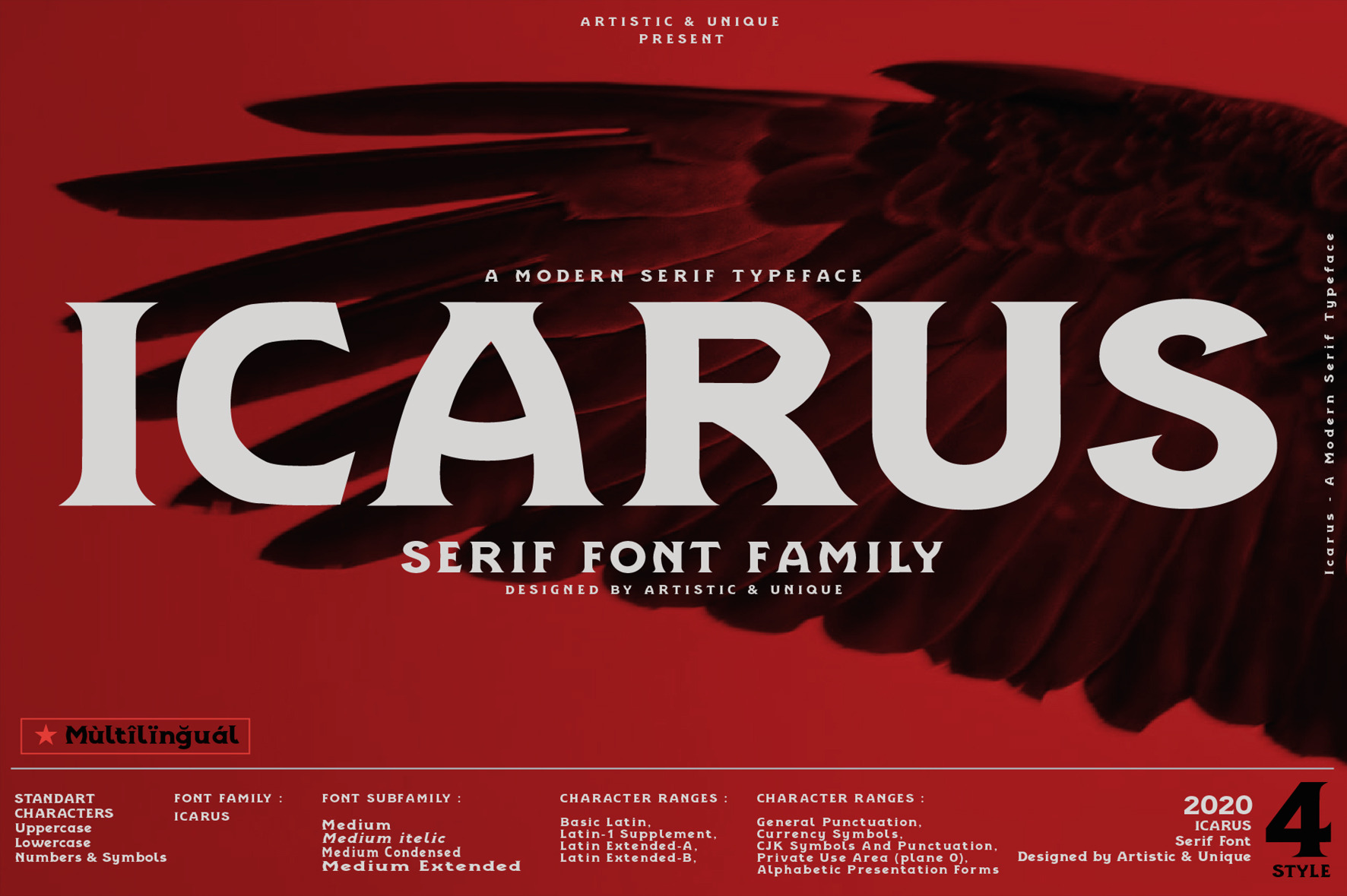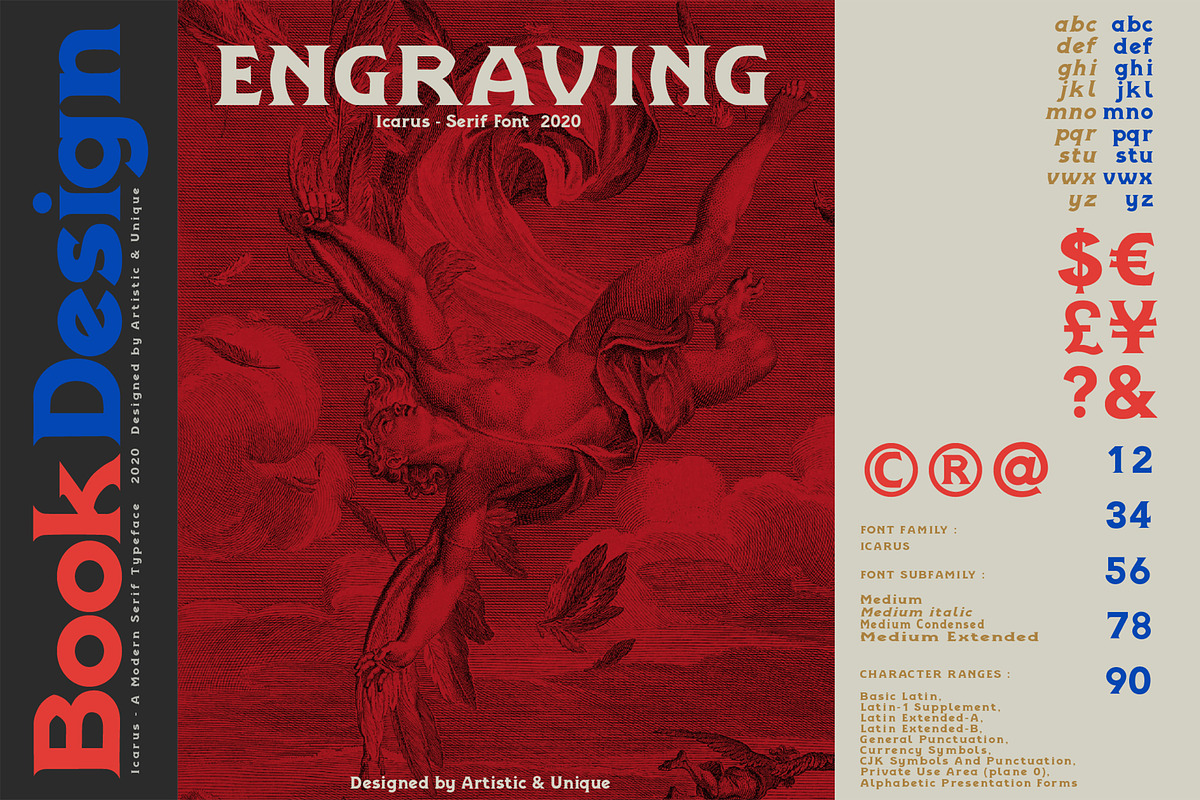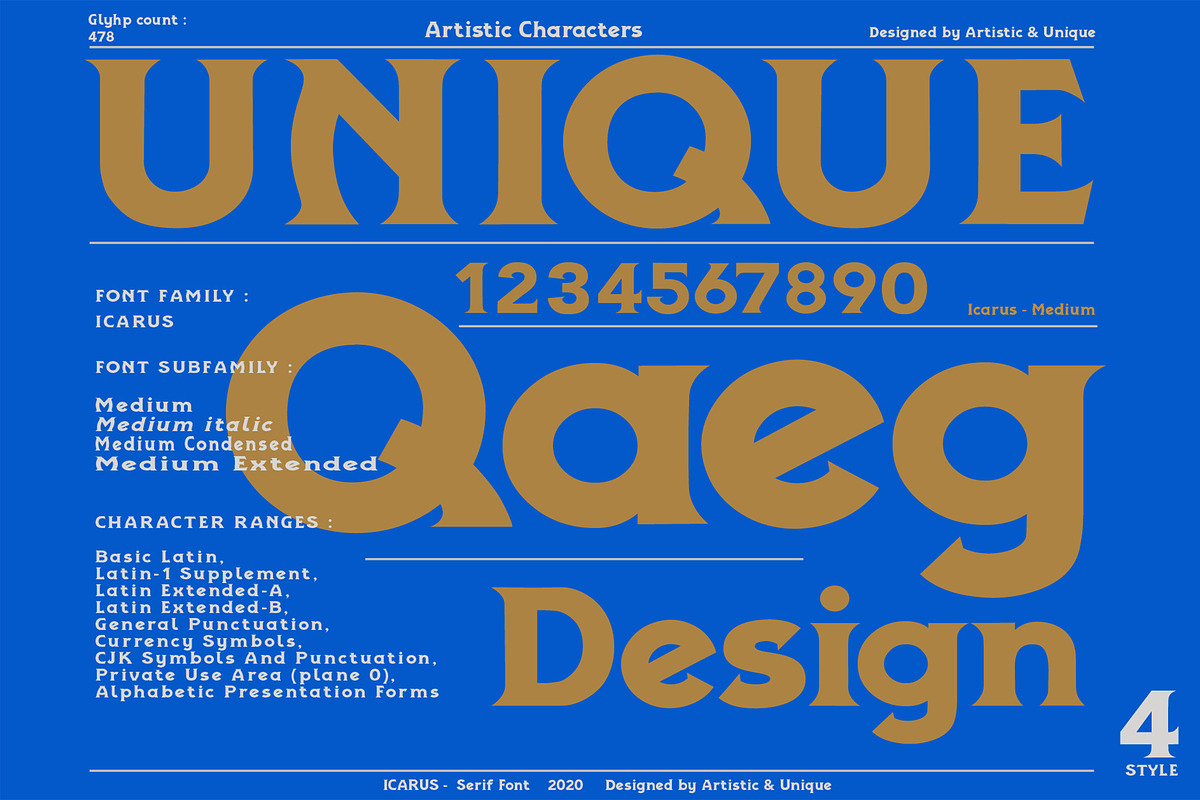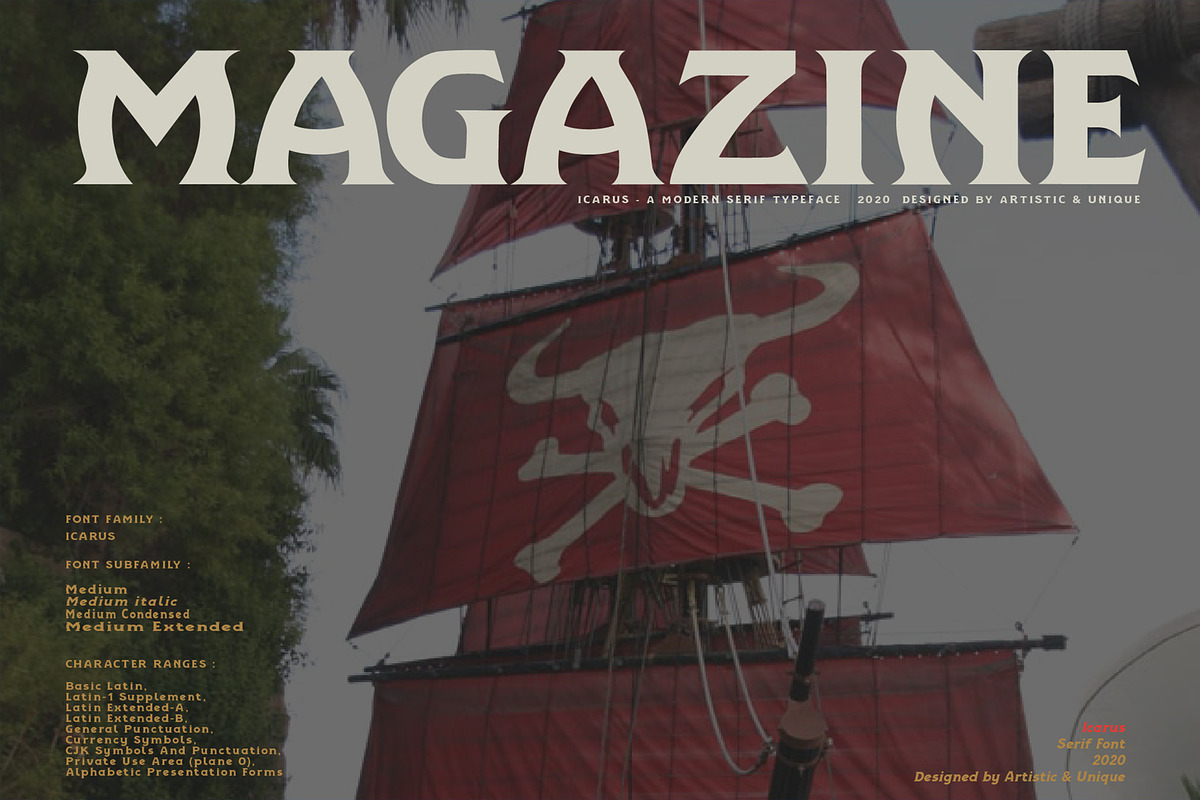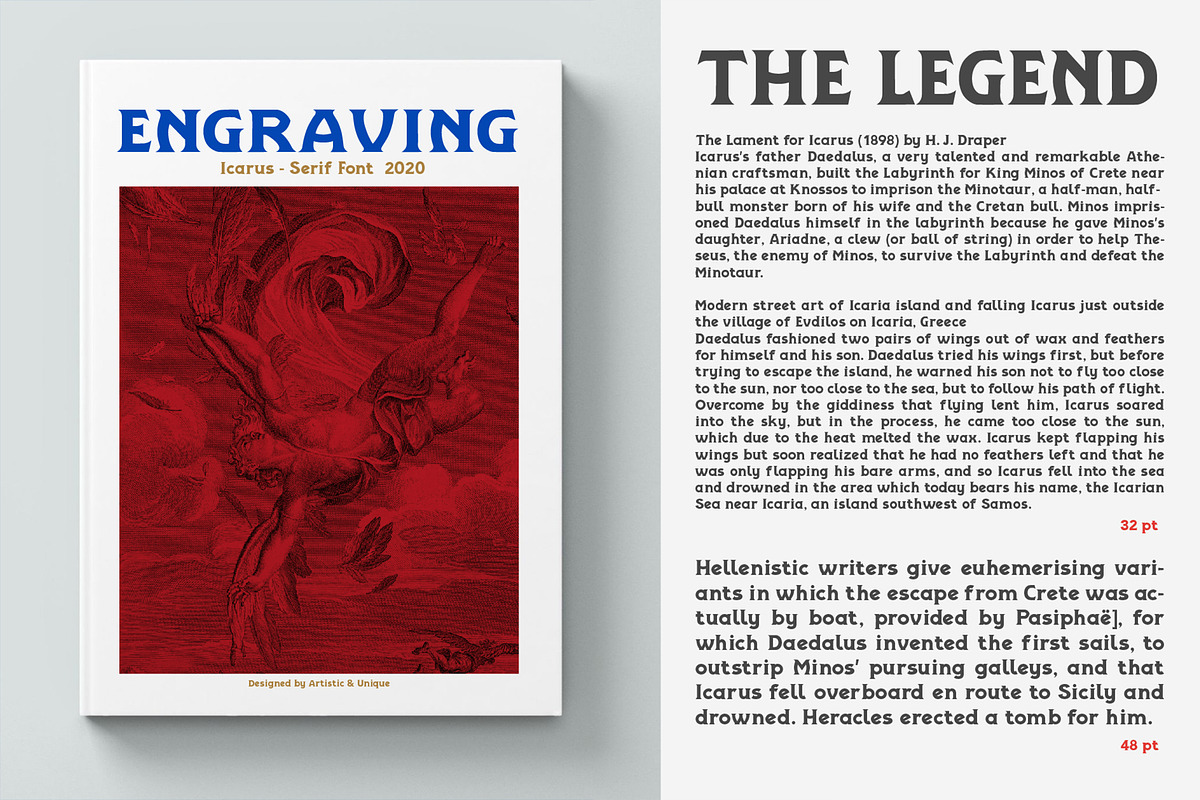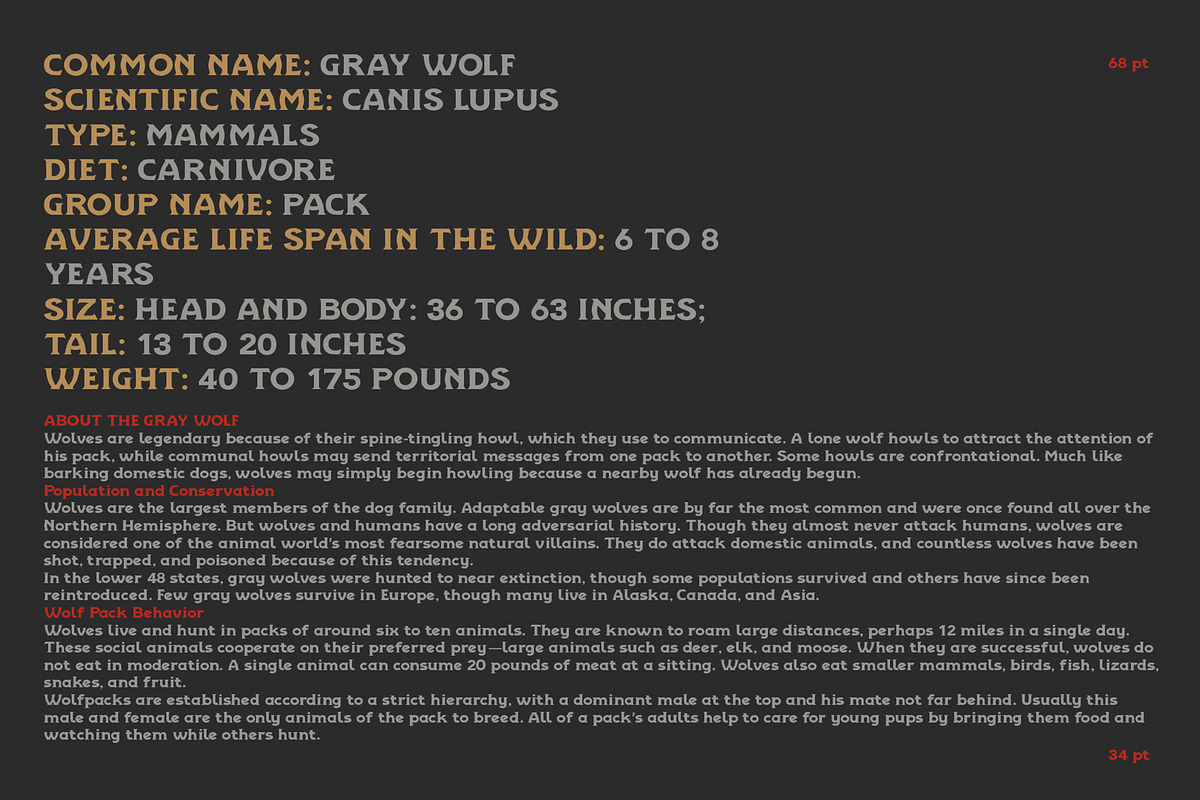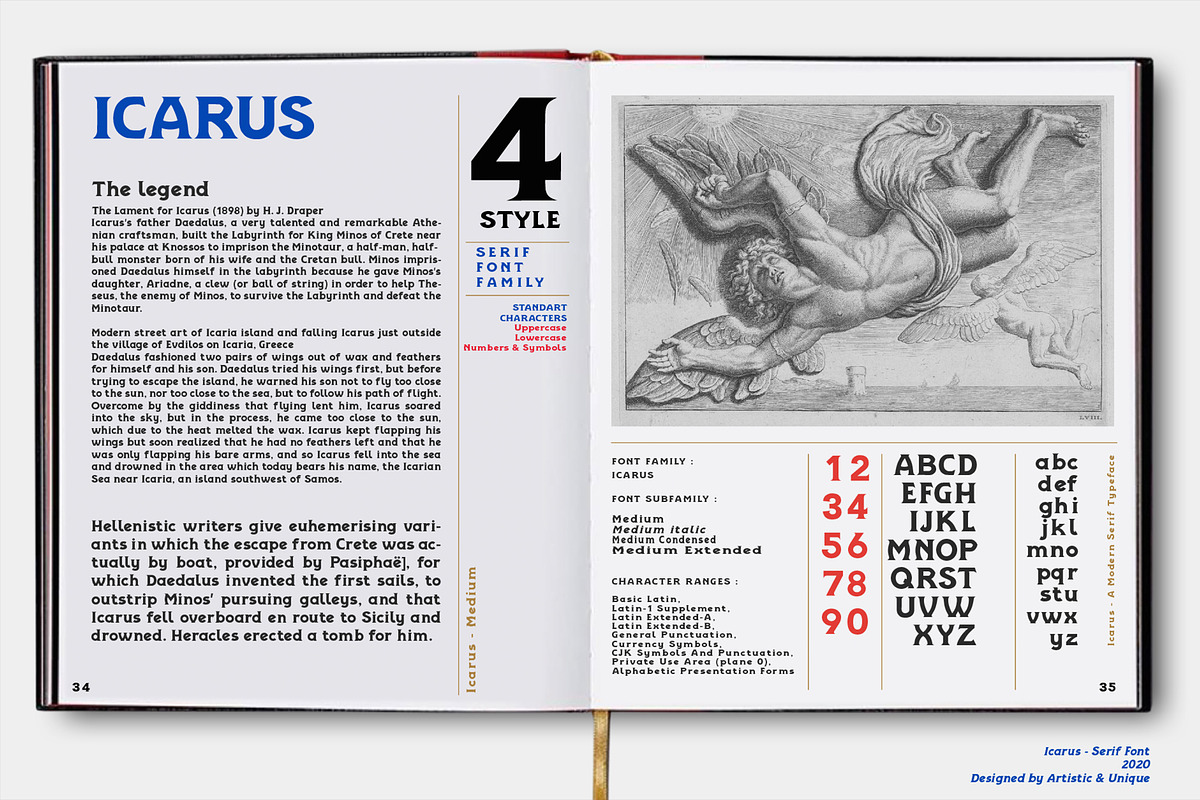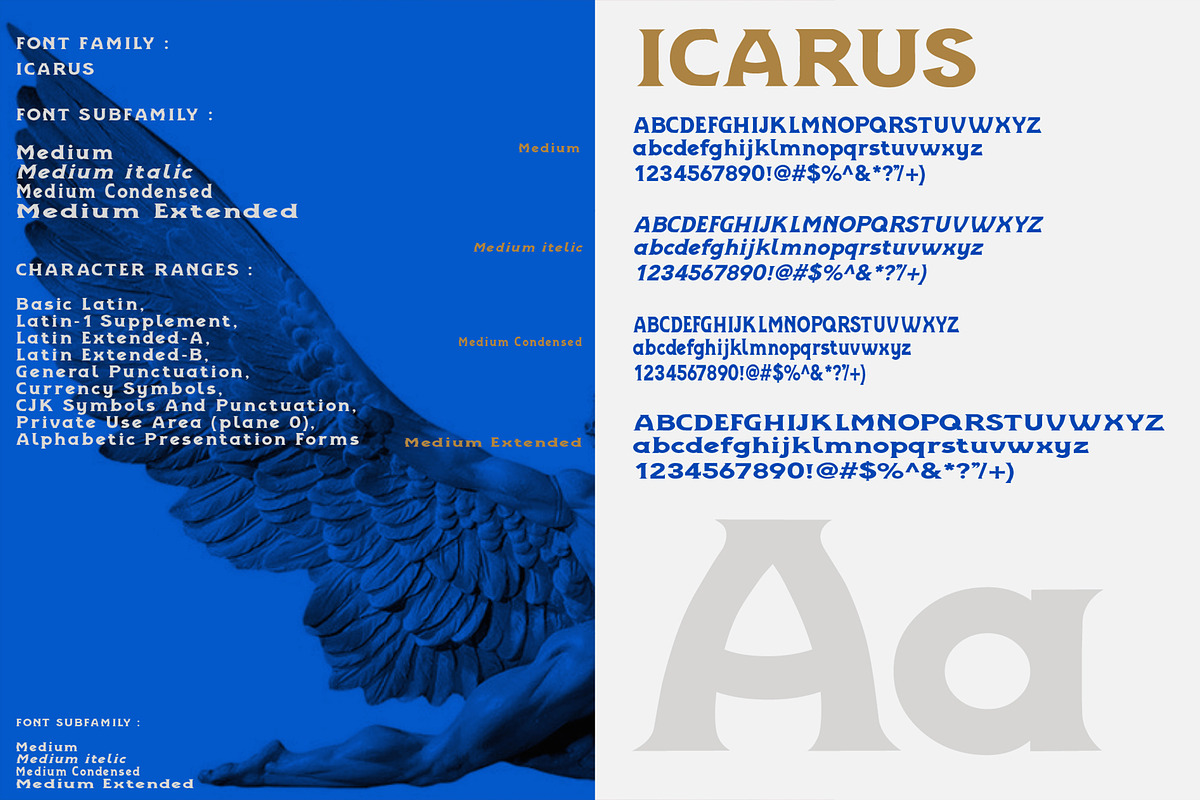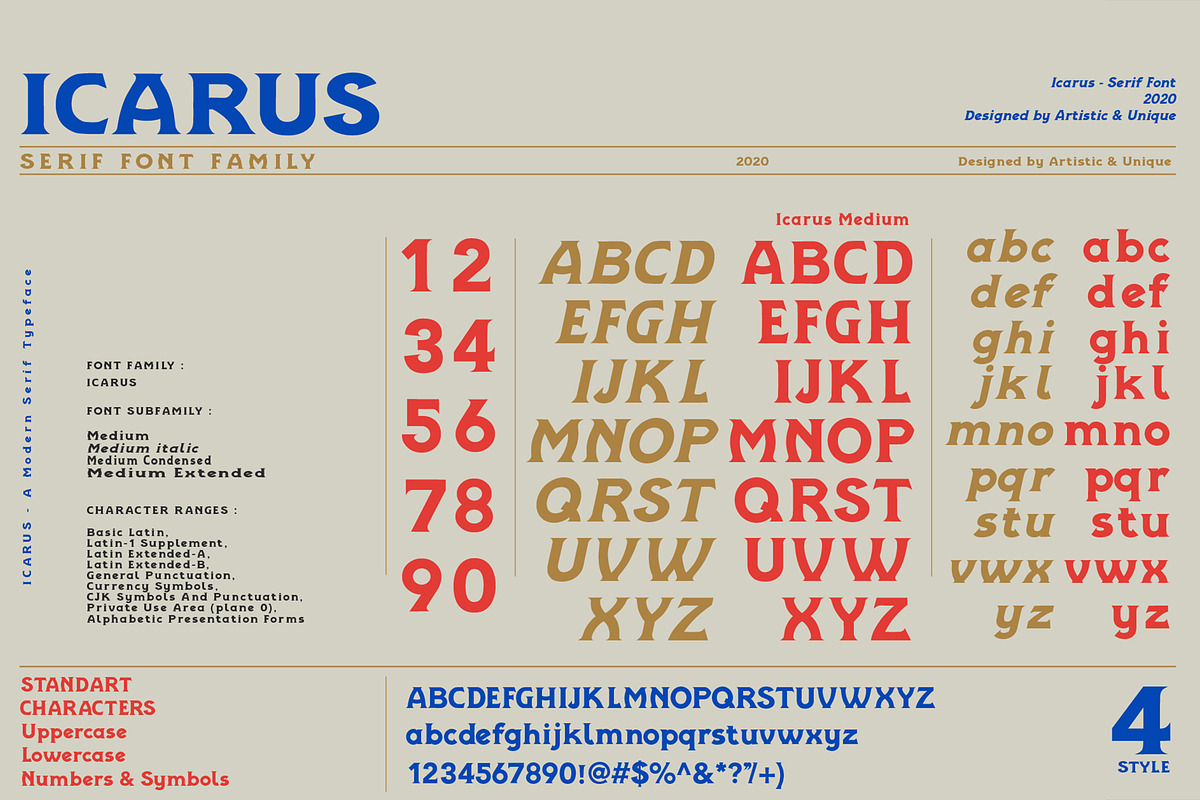
ICARUS - Serif font family
Icarus - Serif Font Family - Multilingual - 4 Style (2020)
With its modern vintage look, Icarus font offers a wide variety of styles to help you discover the best mood for your projects, from body text to large titles, classic styles to modern and bold styles.
It is very suitable for books and magazines, editorials, titles, websites, logos, branding, advertising and more.
CHARACTER RANGES :
- Basic Latin,
- Latin-1 Supplement,
- Latin Extended-A,
- Latin Extended-B,
- General Punctuation,
- Currency Symbols,
- CJK Symbols And Punctuation,
- Private Use Area (plane 0),
FONT FAMILY :
- Icarus
FONT SUBFAMILY :
- Medium
- Medium italic
- Medium Condensed
Medium Extended
- Uppercase typeface
- Lowercase typeface
With this font you can create your unique designs.